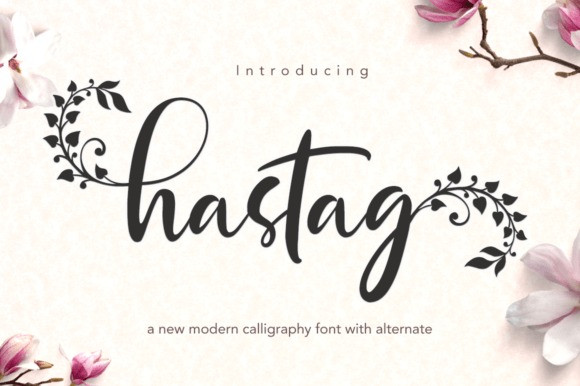
Hastag Font
Hastag Font – Modern Calligraphy. This font was designed by handwriting, and it has a modern and unique forms of calligraphy, the writing style is very natural.
Can be used for various purposes.such as headings, logos, wedding invitation, t-shirt, letterhead, signage, lable, news, posters, badges etc. To enable the OpenType Stylistic alternates, you need a program that supports OpenType features such as Adobe Illustrator CS, Adobe Indesign & CorelDraw X6-X7.